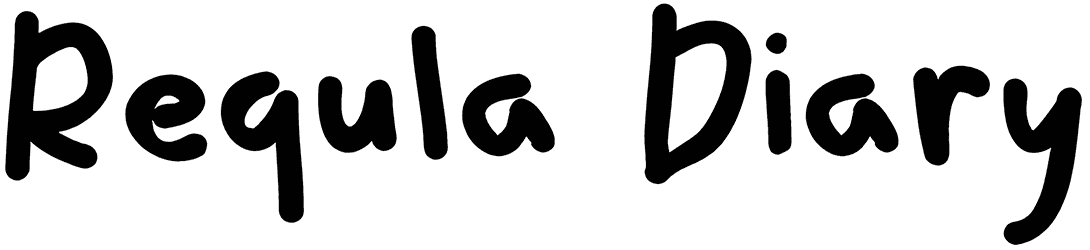
Requla Diary Font
If you want to decorate a kids’ poster, a notebook cover, or a daily Instagram post, this handwritten font can help you create a friendly and sweet visual for your words. This modern and natural script font has the power to give a casual but distinct form to your text. Try the Requla Diary font for your new idea and make it memorable.